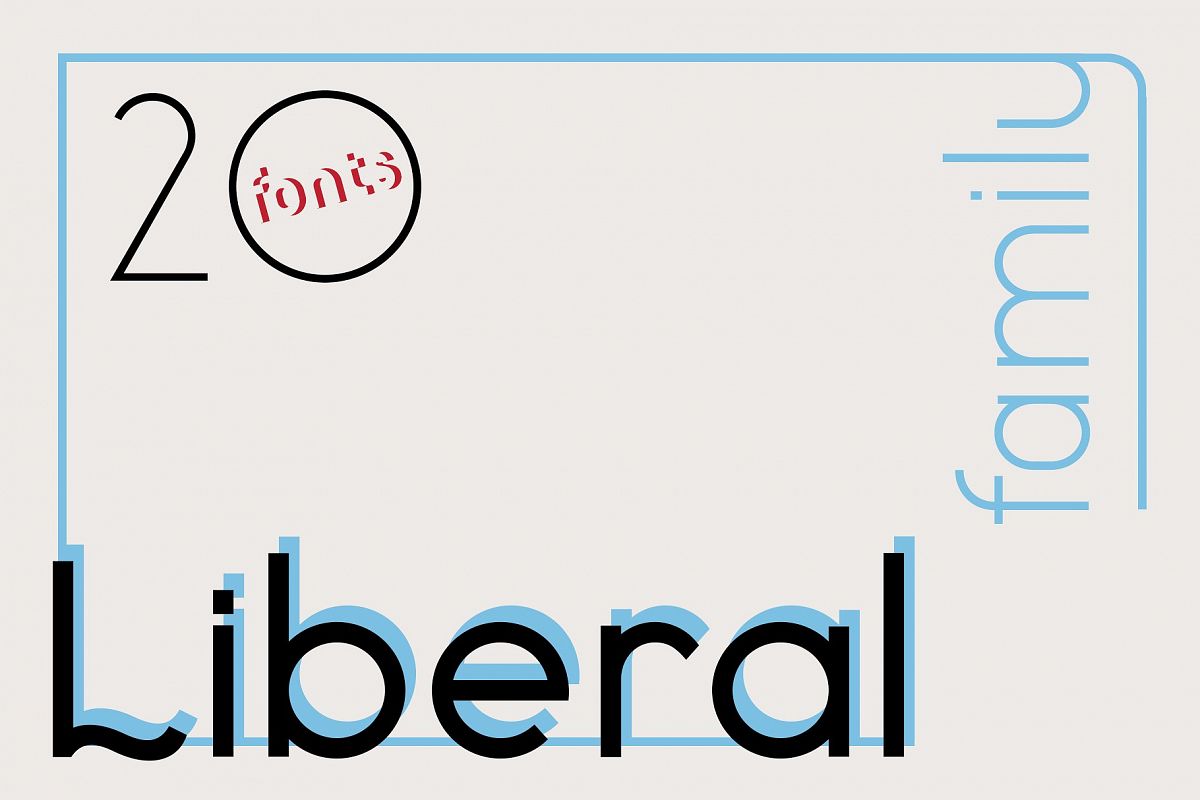
Liberal Family
Liberal is sans serif monoline decided on regular and condensed. The typeface has:
• 20 styles
• alternates
• ligatures
• extended latin
• basic cyrillic